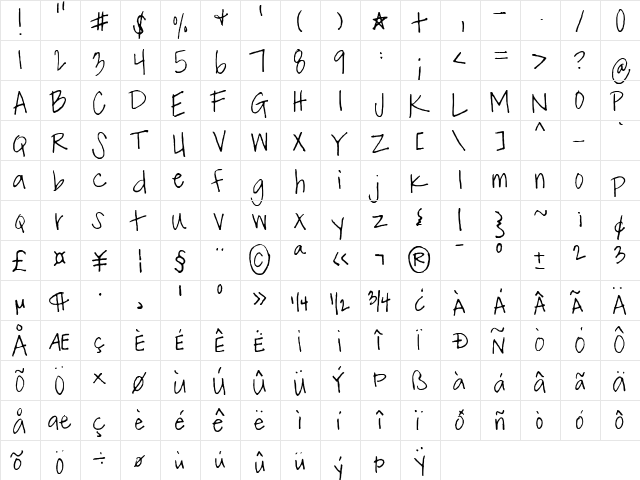
FG Dora Regular Font Preview
FG Dora Regular
FG Dora Regular Font Details
| Foundry | Font Garden |
| Designer | Font Garden |
Design Context for FG Dora Typeface
FG Dora is a composed and adaptable typeface that performs quietly and consistently across a wide range of design contexts.